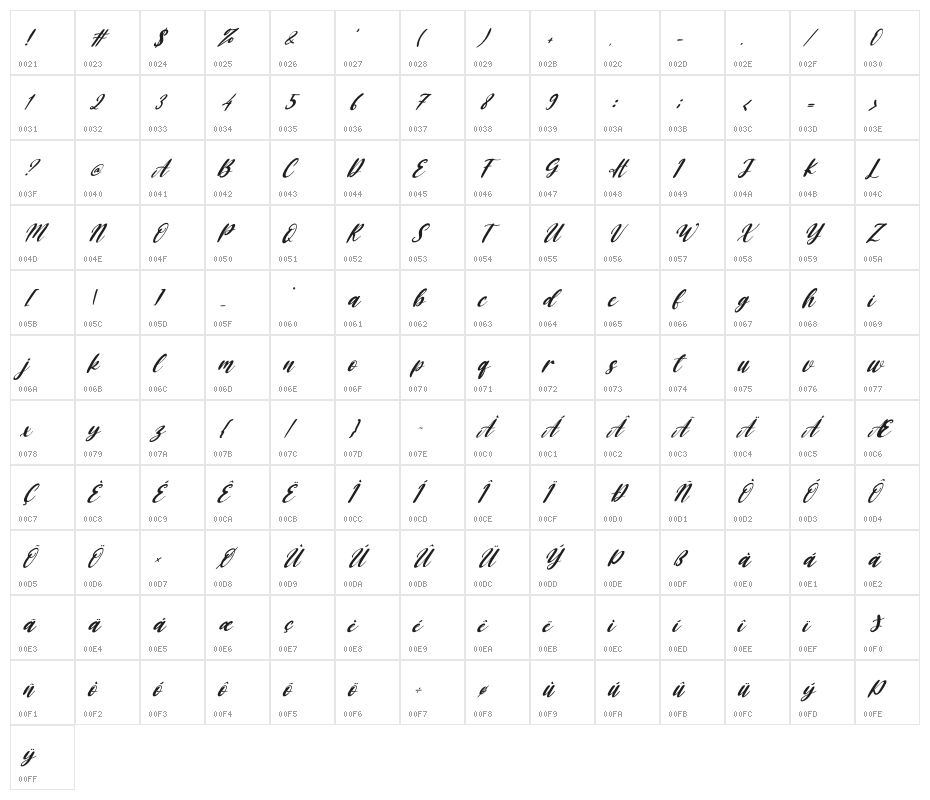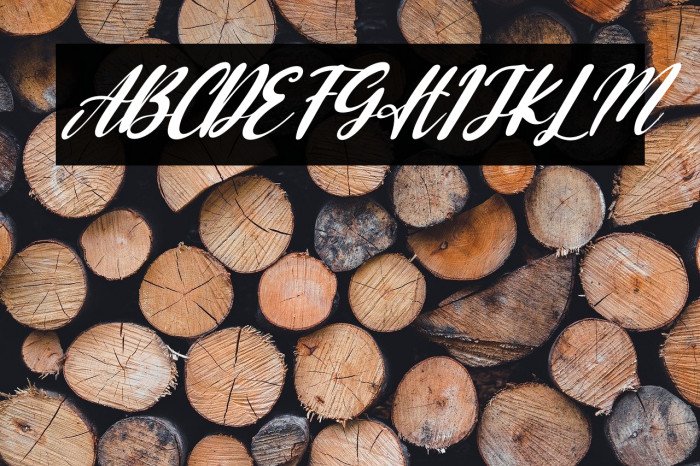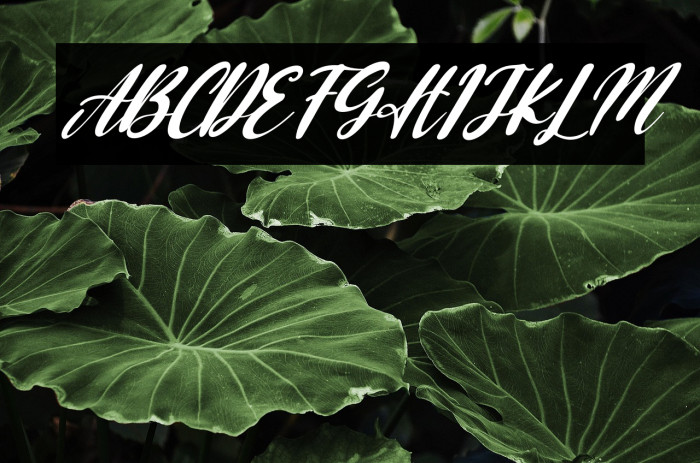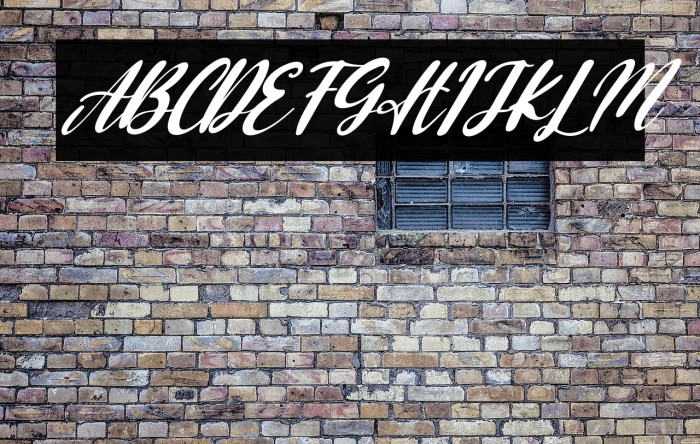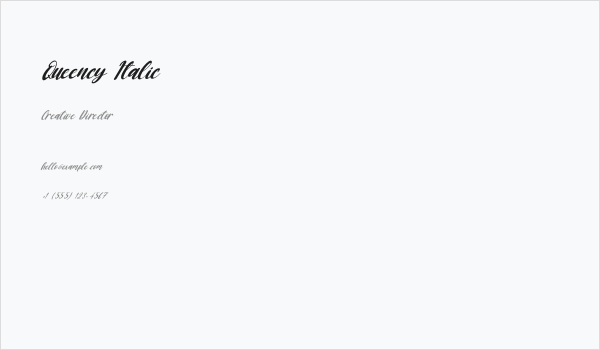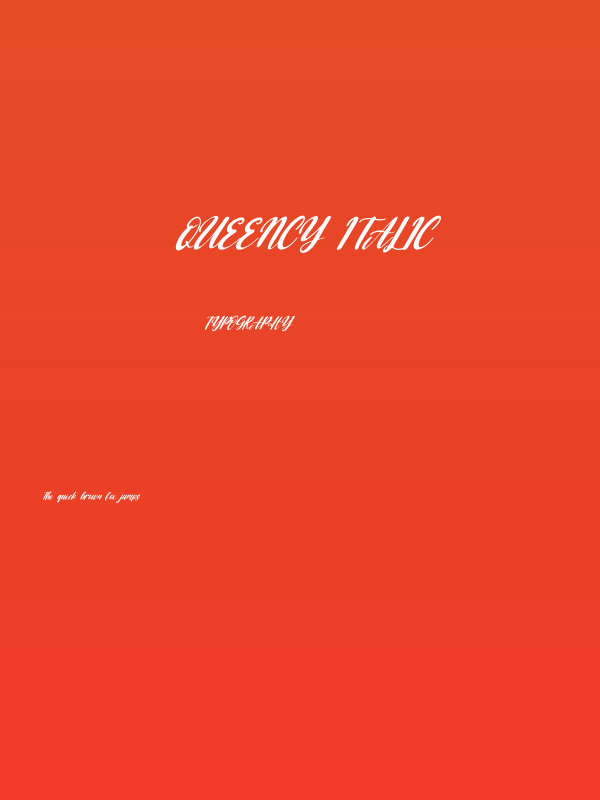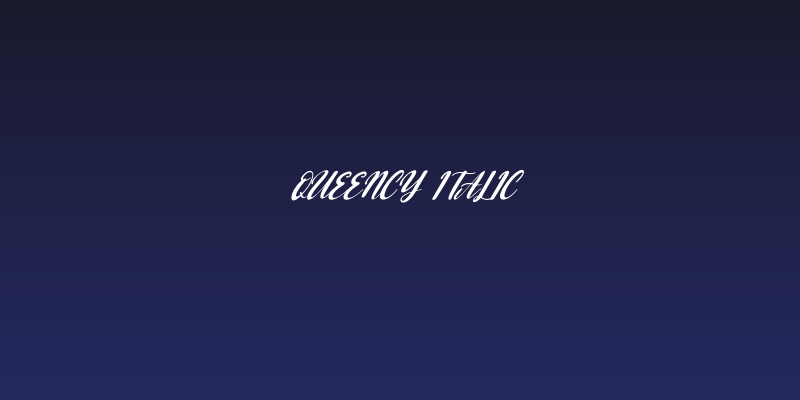
Queency Italic Font
Queency Italic Description
This font features a dynamic and elegant script style, characterized by its flowing, cursive letterforms. The strokes are smooth and connected, giving it a handwritten appearance. The uppercase letters are bold and expressive, while the lowercase letters maintain a consistent rhythm, enhancing readability. The numerals and special characters are crafted with the same fluidity, ensuring a cohesive look across all text elements. The italic slant adds a sense of motion and sophistication, making it suitable for creative and formal applications.